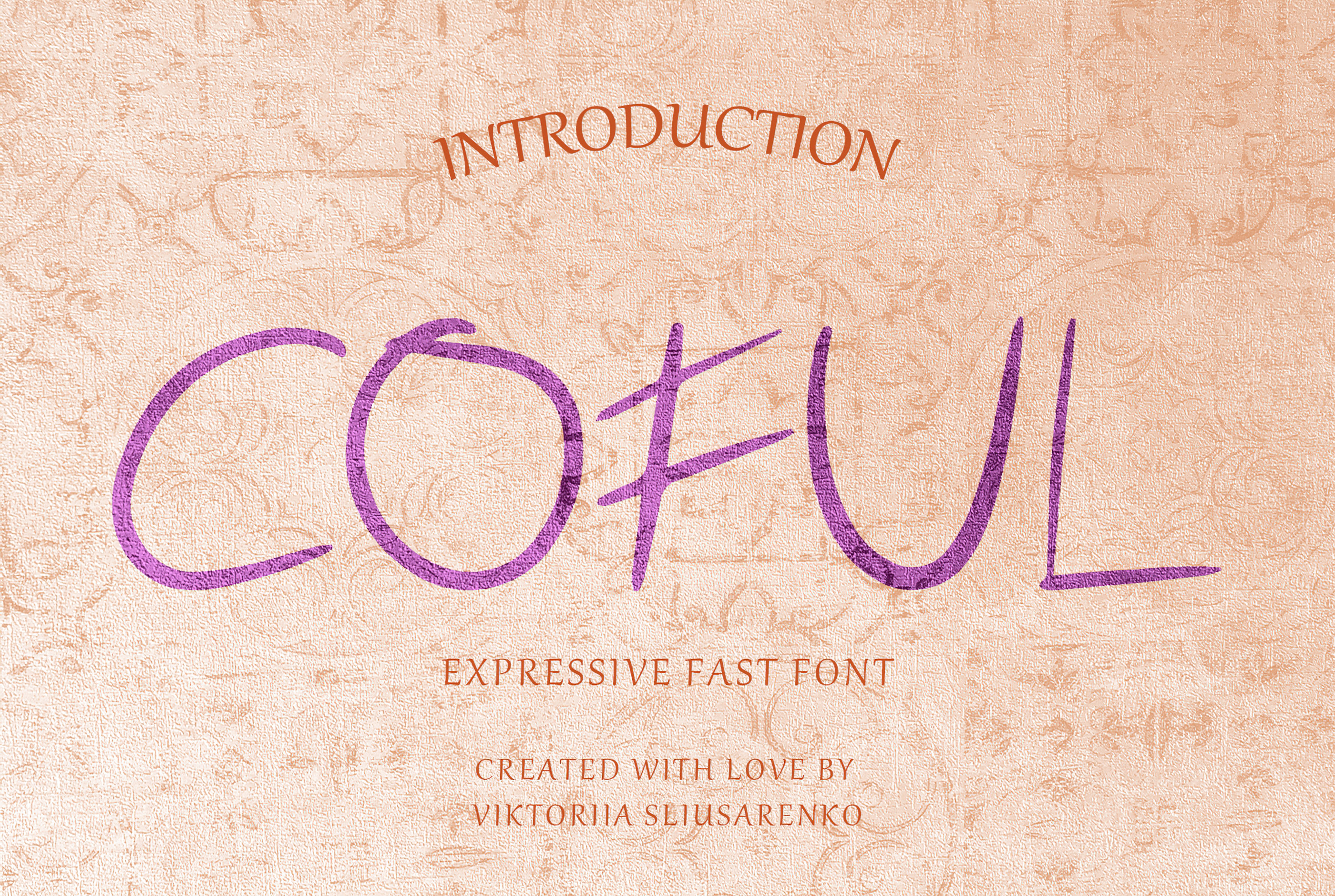
COFUL - expressive fast font
Introducing Coful, an exquisite and unique handwritten font that effortlessly adds a personal touch to your design projects. Crafted as a vector font, it boasts a slender appearance, as if swiftly sketched, infusing your designs with a vibrant sense of energy and motion. The font's allure is further enhanced by the inclusion of 16 captivating ligatures, enhancing its overall charm and individuality.
Resembling the smooth strokes of a gel pen, Coful excels across a myriad of applications, from logos and branding to social media graphics and invitations. Its hand-drawn style creates an authentic and inviting atmosphere in any design, making it a versatile and invaluable addition to your font collection.